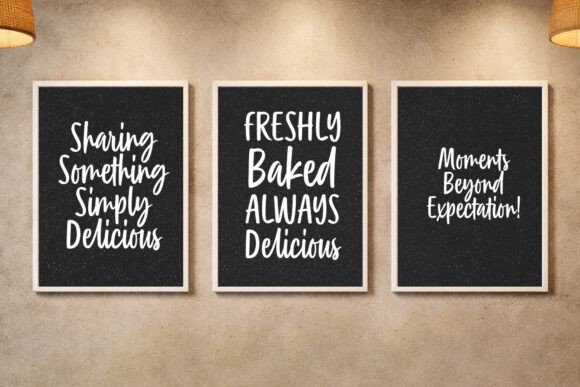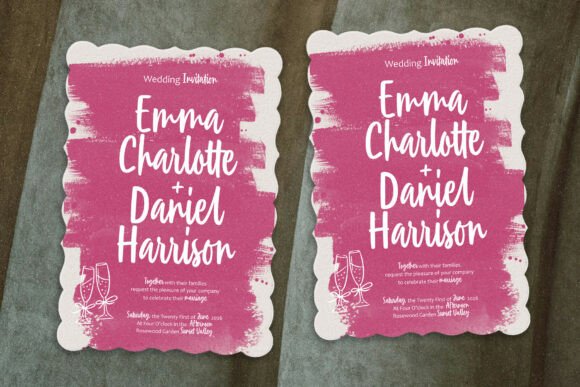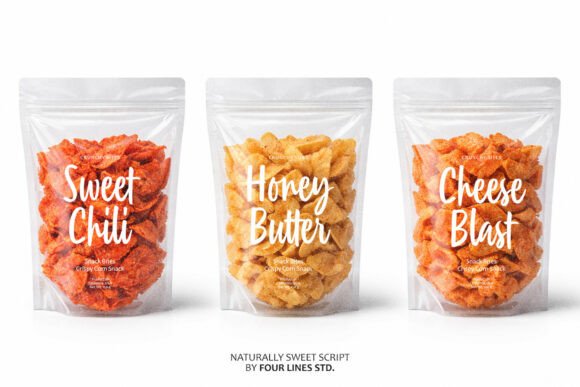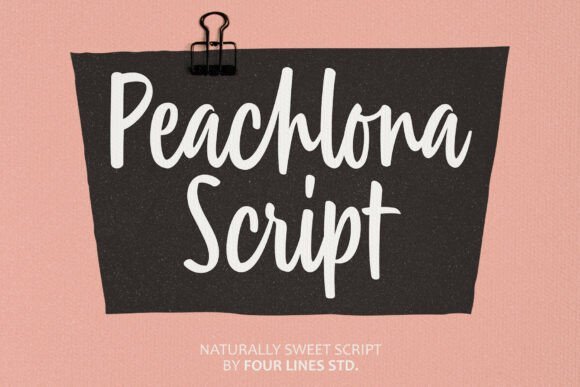
Introduction to Peachlona Script Font
Peachlona Script is a handwritten script font with a soft, natural style and clear readability.
It is designed to bring a warm and friendly touch to a wide range of design needs The letterforms flow smoothly with a relaxed handwritten feel, making the font suitable for titles, logos, and decorative elements in design.
Key Features of Peachlona Script Font